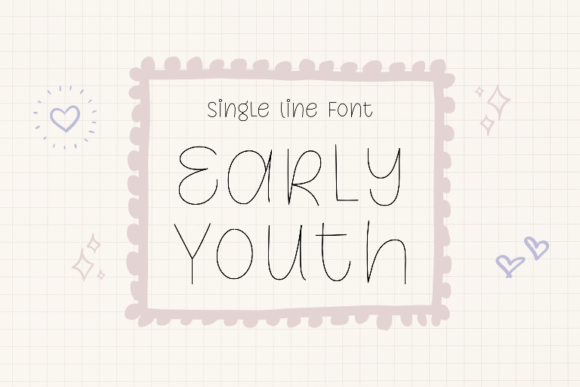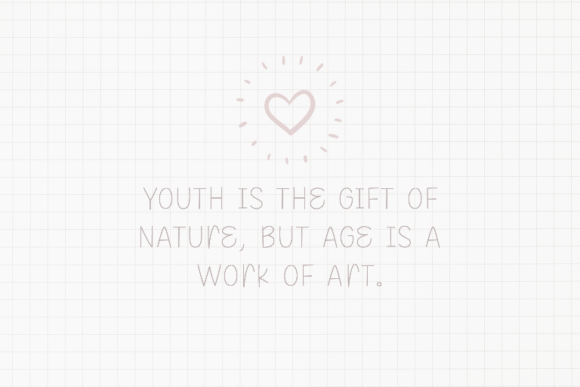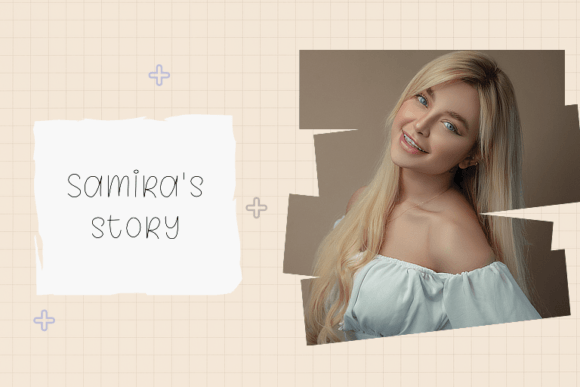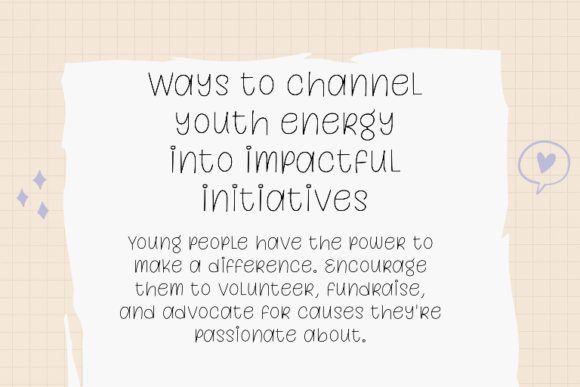
Early Youth Font: A Cute Single Line Font for Cricut & Crafts
About the Early Youth Font
Elevate your designs with Early Youth Font, a font that combines sophistication with readability. Early Youth is a unique display single-line font that captures beauty and diversity. Each character is meticulously crafted to evoke the fluidity and natural flow of handwriting while maintaining a clean and polished appearance. With its elegant yet playful style, this font is perfect for a variety of projects, including branding, packaging, social media graphics, and more.
Early Youth excels as a display font for headlines, short taglines, and logos where its elegant playfulness shines. It’s ideal for projects needing a touch of hand-crafted charm, such as branding for artisanal products, invitations, or social media posts. However, its decorative nature makes it unsuitable for body text or UI elements requiring high readability. Long paragraphs set in Early Youth would be difficult to read.
Pairing Early Youth effectively depends on the desired emphasis. For a sophisticated feel, consider pairing it with a clean sans-serif like Montserrat or a classic serif like Garamond. To highlight its playful side, a geometric sans-serif like Futura or a slightly informal script font could work well.
The overall personality of Early Youth is sophisticated yet approachable, conveying both elegance and a friendly, youthful energy. This makes it a versatile choice for brands aiming for a balance between premium quality and approachability.
Early Youth Font Usage Examples
Early Youth Font Example